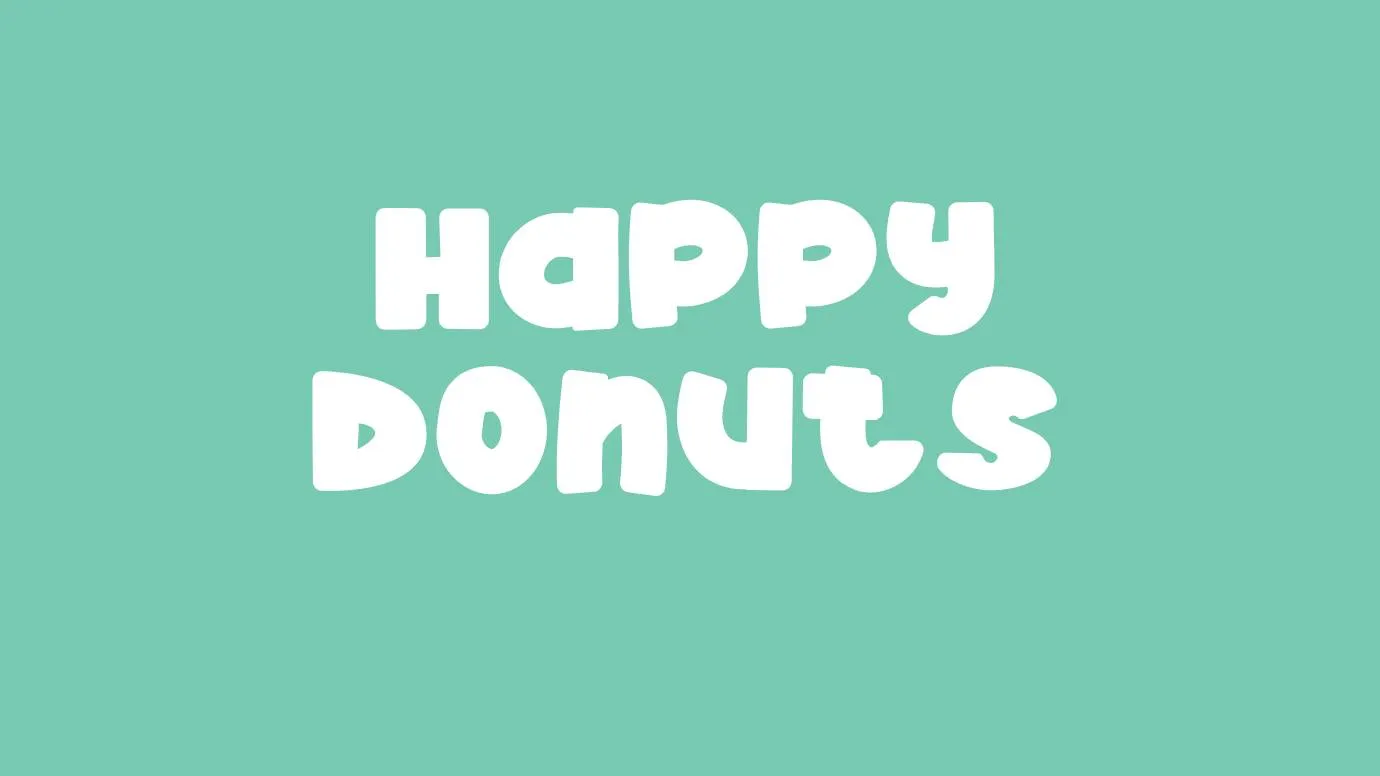
Happy Donuts Font Family is a very cute and lovely fancy-type font. This amazing font was designed by Heru Utama Putra and manufactured by Letterena Studios.
Happy Donuts Font